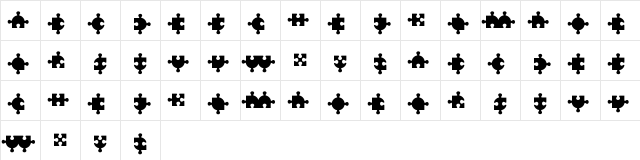
Puzzle Regular Free Font
Puzzle Regular
Foundry: FontLab, Ltd. Inc.
Complete Puzzle Regular glyph index. Displaying only characters natively supported by Puzzle Regular font.
Design Context for Puzzle
Puzzle is a composed and adaptable typeface that performs quietly and consistently across a wide range of design contexts.
Who designed the Puzzle Regular font?